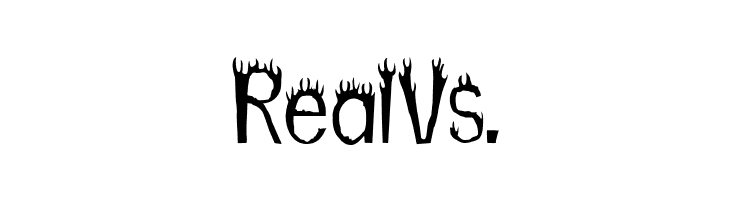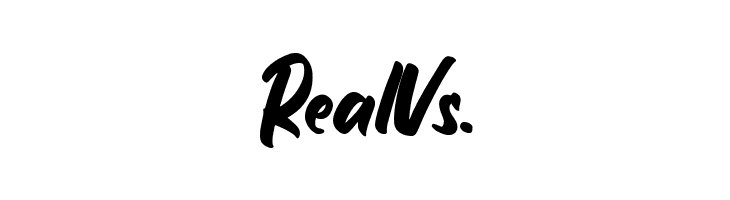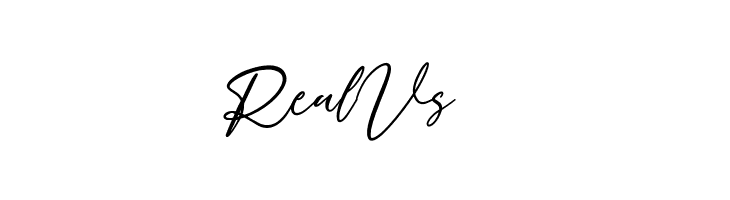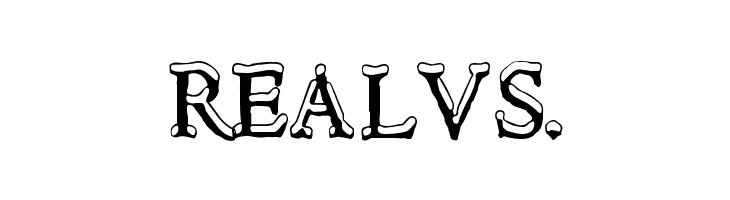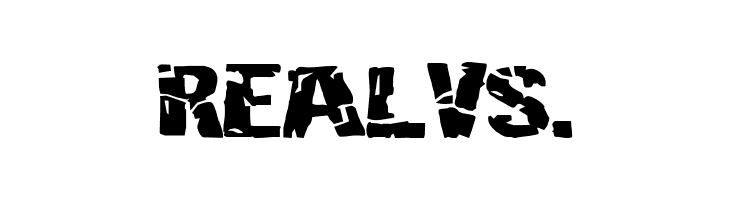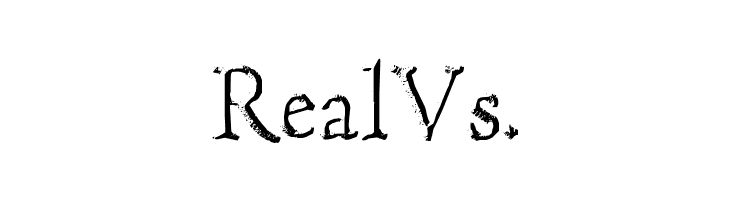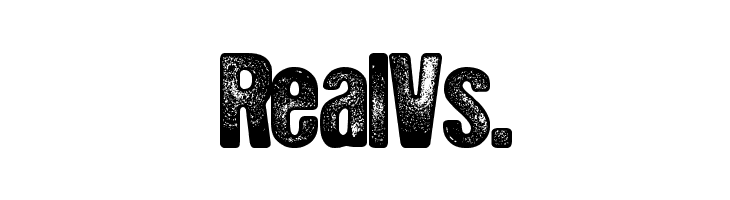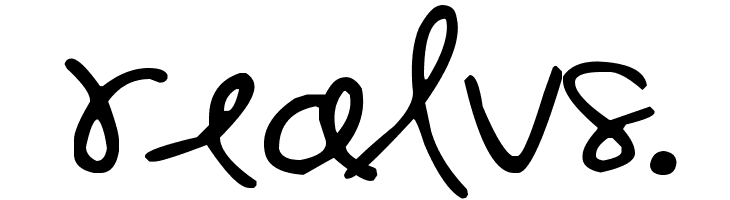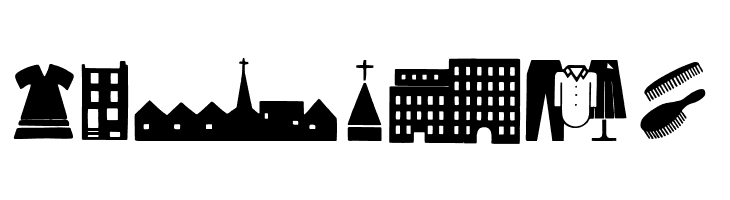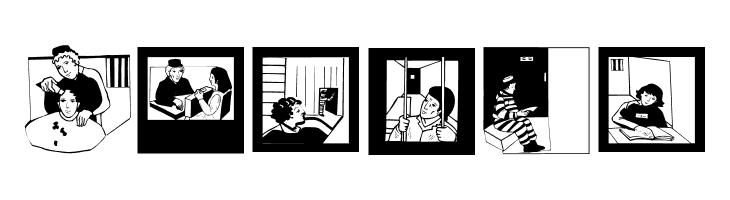
A bold, distressed font with a vintage, textured appearance.
A decorative font with comic-style illustrations for each character.
A bold, dynamic script font with a handwritten, energetic style.
A bold, flame-accented font with a dynamic and edgy style.
An abstract, artistic font with intricate line drawings and geometric patterns.
A whimsical and artistic font with playful curves and varying stroke widths.
A flowing, cursive script font with elegant, interconnected strokes.
Illustrative dingbat font with household-themed pictograms.
Icon-based decorative font with housing and lifestyle motifs.
A bold, geometric font with a sporty, structured design.
A whimsical, illustrative font with fish-shaped characters.
A flowing, elegant script font with a modern calligraphic style.
A bold, playful font with rounded edges and a friendly appearance.
A bold, decorative font with an organic, splattered appearance.
A rugged, distressed font with a bold, textured appearance.
A high-contrast, elegant serif font with sharp serifs and modern styling.
A creative and abstract font featuring uniquely styled question marks.
A playful, bold, and cartoonish outline font with a hand-drawn feel.
A bold, playful font with an irregular, hand-drawn style.
A playful, handwritten font with dynamic strokes and a whimsical style.
A bold, distressed font with a rugged and industrial appearance.
A bold, 3D stone-like font with a rugged, cracked appearance.
An engraved, textured font with a vintage and classic appeal.
A playful, decorative font with bold, rounded edges and a whimsical, hand-drawn style.